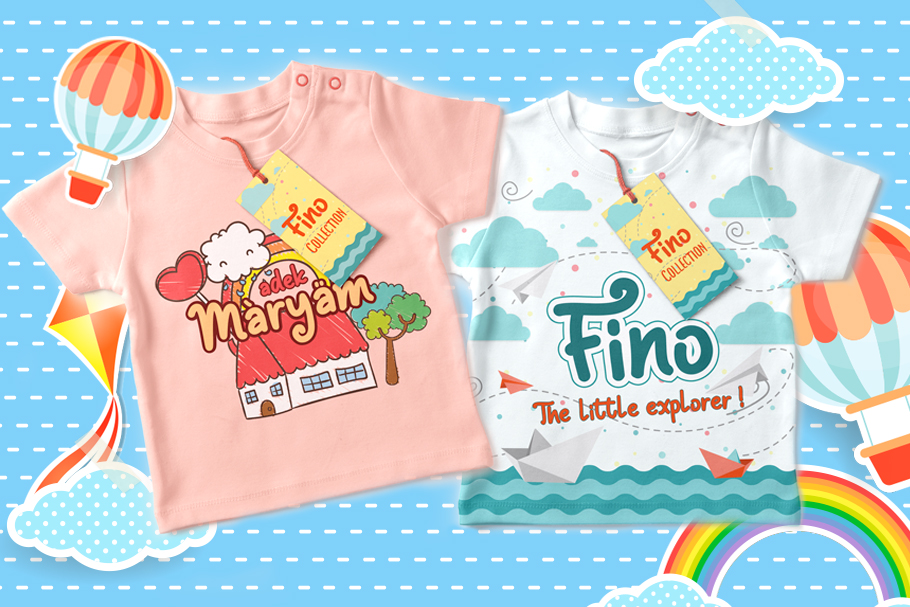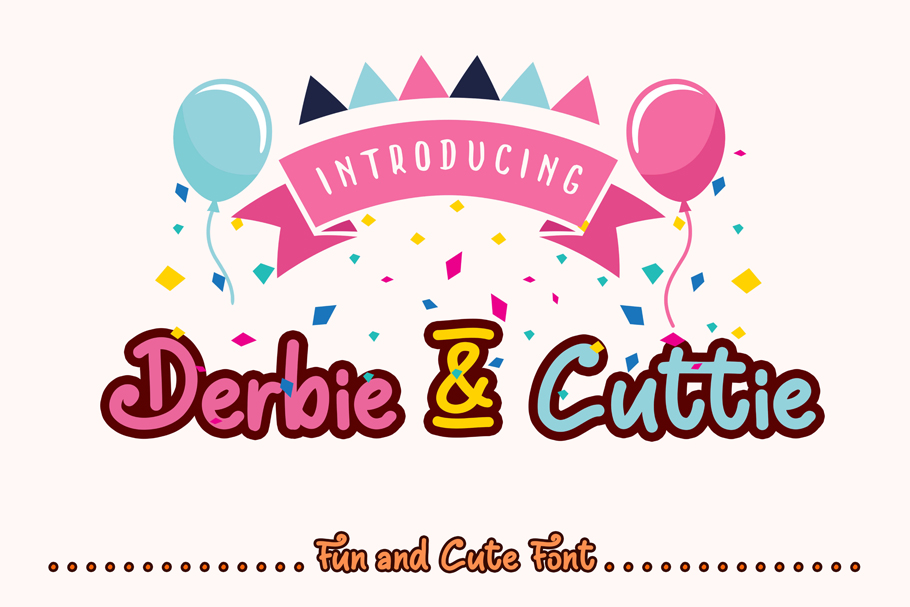
Derbie & Cuttie Script
Derbie & Cuttie Script Font
Derbie &Cuttie is cute handwritten Layered font,This font is perfect for quotes, headings, blogs, logos,t-shirt, invitations and more!
It is also great for children’s designs!